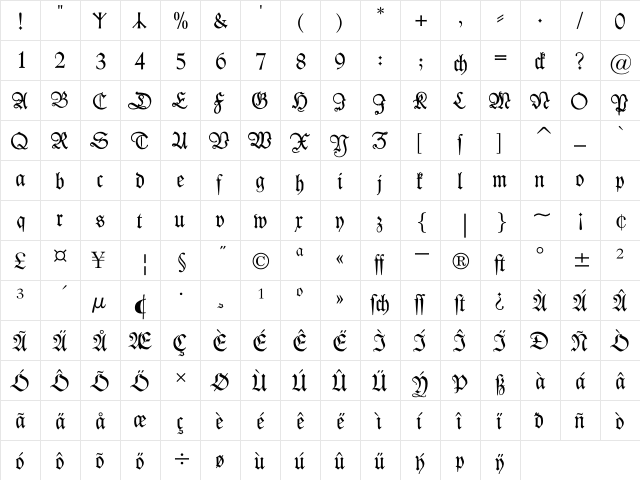
Kleist-Fraktur Zierbuchstaben Regular
Design Context for Kleist-Fraktur Zierbuchstaben Typeface
Kleist-Fraktur Zierbuchstaben channels the dramatic heritage of Fraktur and Gothic scripts, bringing a sense of historical gravitas to any design.
Well-suited to band logos, craft beer branding, tattoo lettering, and heritage-themed identities.
Font Pairing: Pair with a clean neutral sans-serif for body copy to let Kleist-Fraktur Zierbuchstaben's character lead without overwhelming the composition.
Pro Tip: Use Kleist-Fraktur Zierbuchstaben sparingly at large sizes. Even a single word set in blackletter can define the visual register of an entire design.